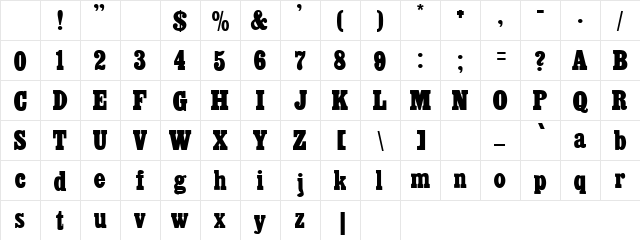
Complete Jamaica Normal glyph index. Displaying only characters natively supported by Jamaica Normal font.
Jamaica is a composed and adaptable typeface that performs quietly and consistently across a wide range of design contexts.